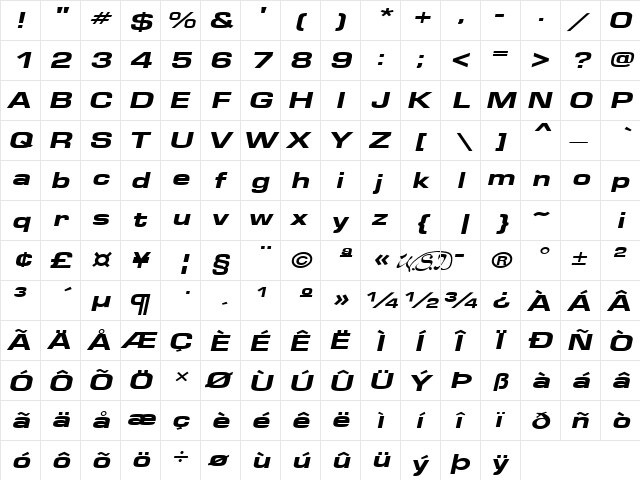
EuroseWide Heavy Italic
Design Context for EuroseWide Heavy Typeface
EuroseWide Heavy takes a measured approach to typography — its balanced proportions and neutral character make it a reliable workhorse for both digital and print work. Its italic angle brings a sense of urgency and motion to the letterforms.
Pro Tip: Use EuroseWide Heavy for emphasis, pull quotes, and subheadings where its slanted energy can add rhythm to the layout.